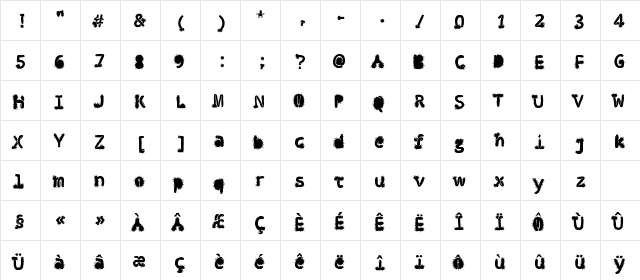
Penis Typography Black Regular
| Designer | Felix Farjas |
Design Context for Penis Typography Black Typeface
Penis Typography Black is a composed and adaptable typeface that performs quietly and consistently across a wide range of design contexts.